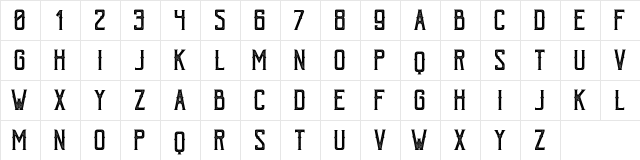
Bohem Press Regular
| Foundry | Dikas Studio |
| Designer | Andika Setiawan |
Design Context for Bohem Press Typeface
Bohem Press is a composed and adaptable typeface that performs quietly and consistently across a wide range of design contexts.